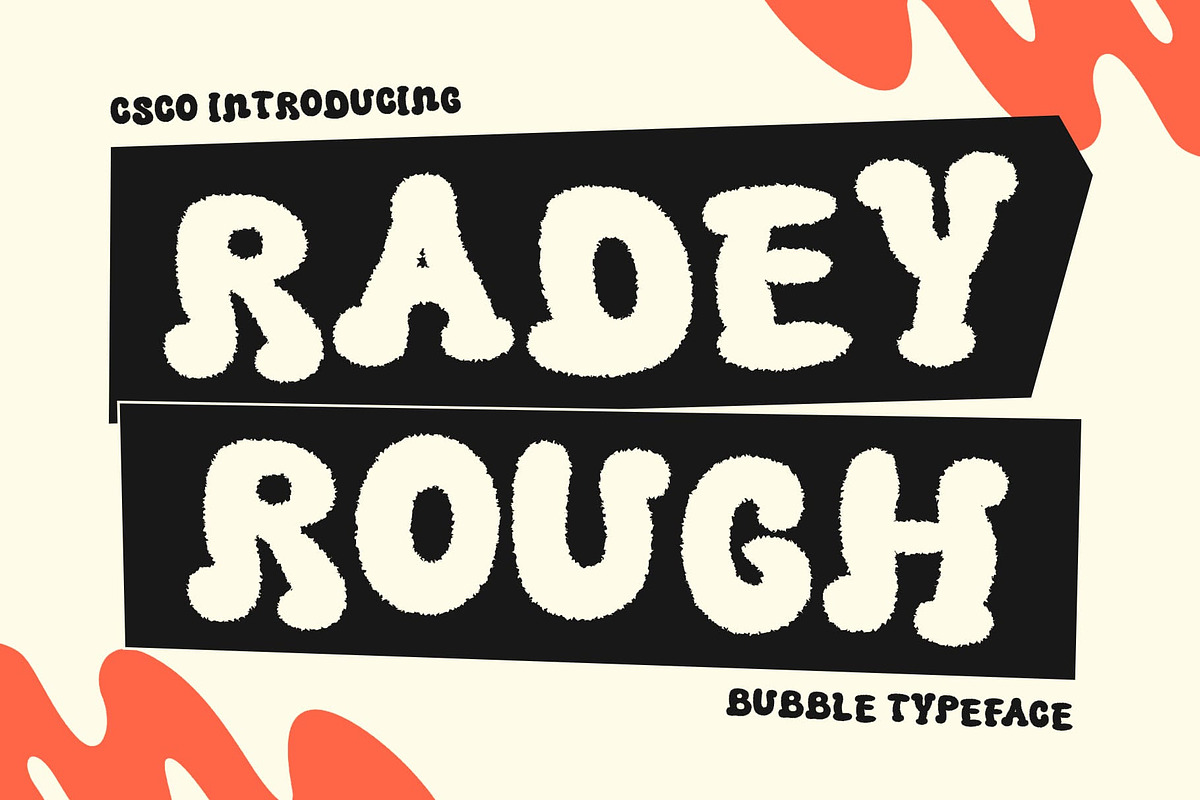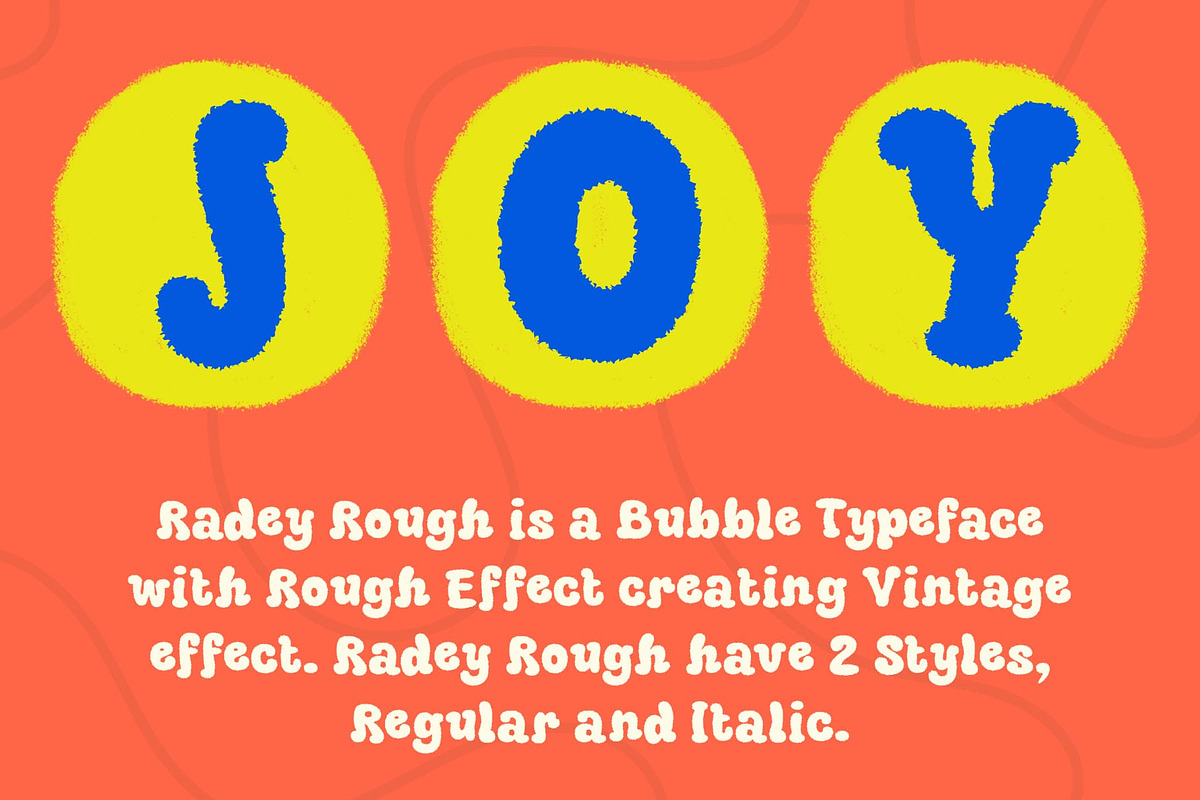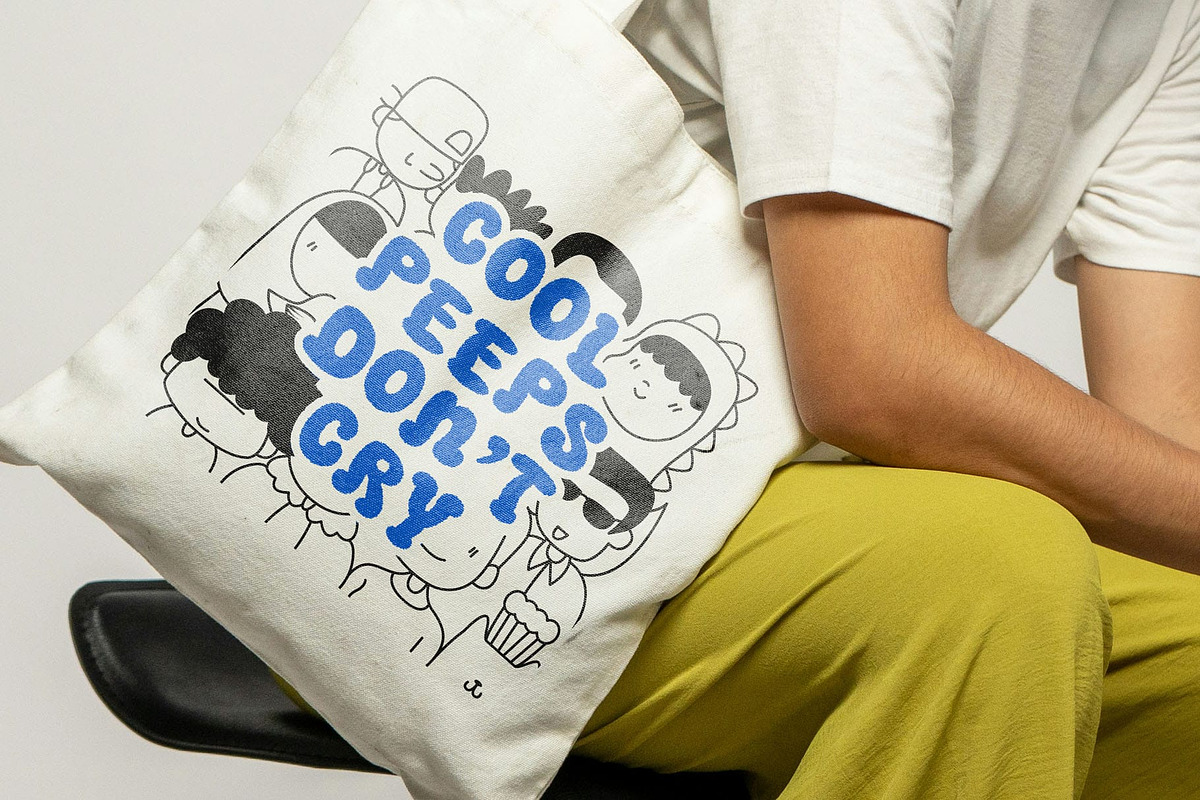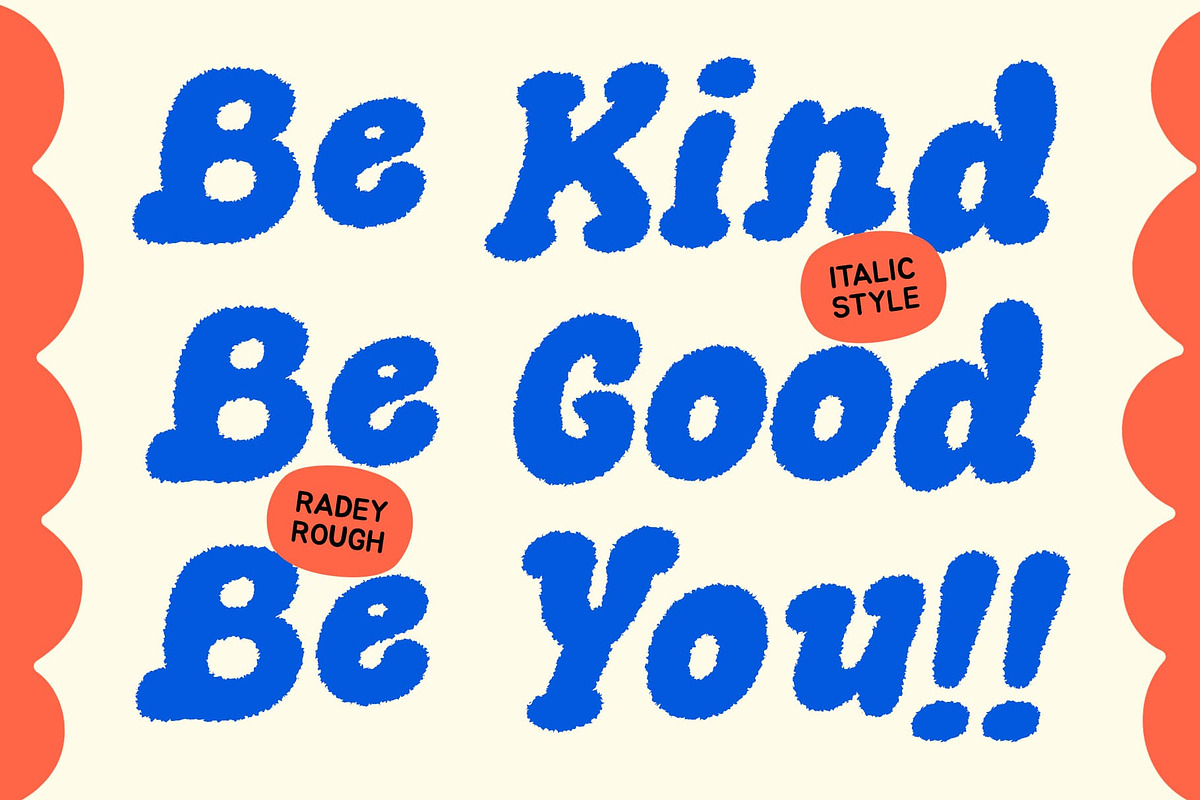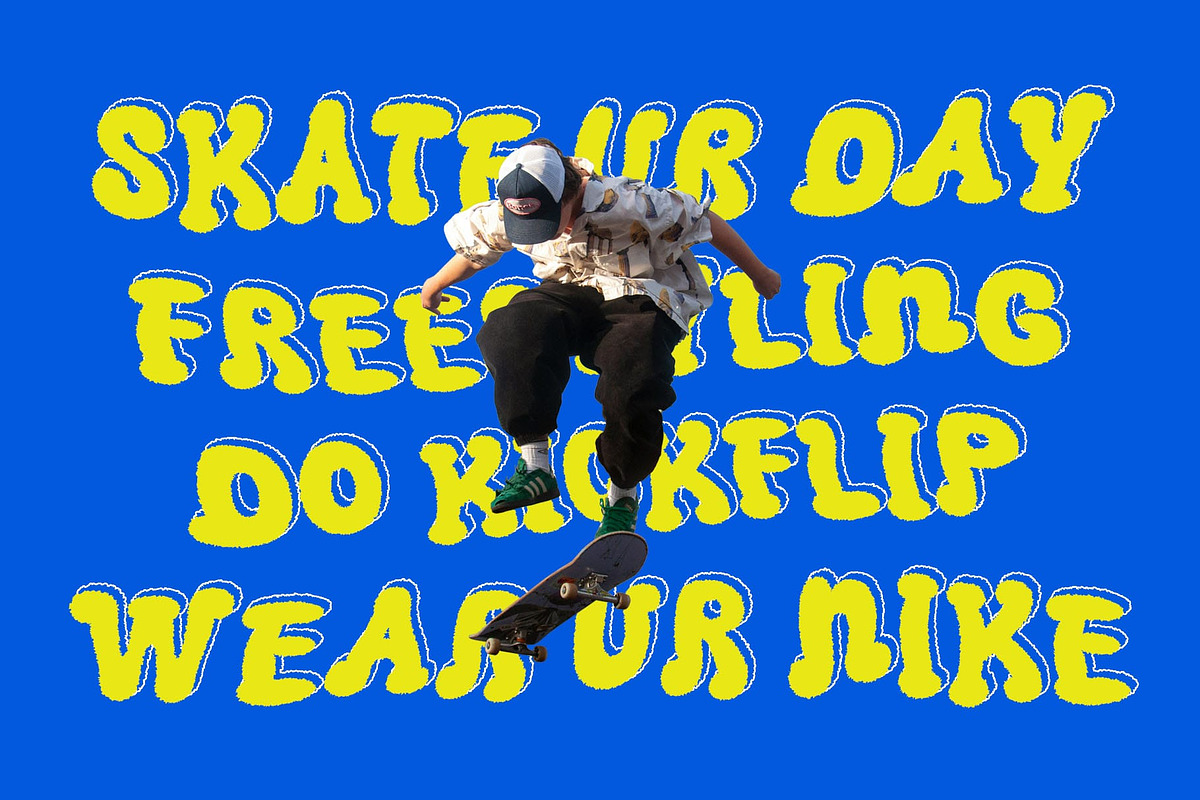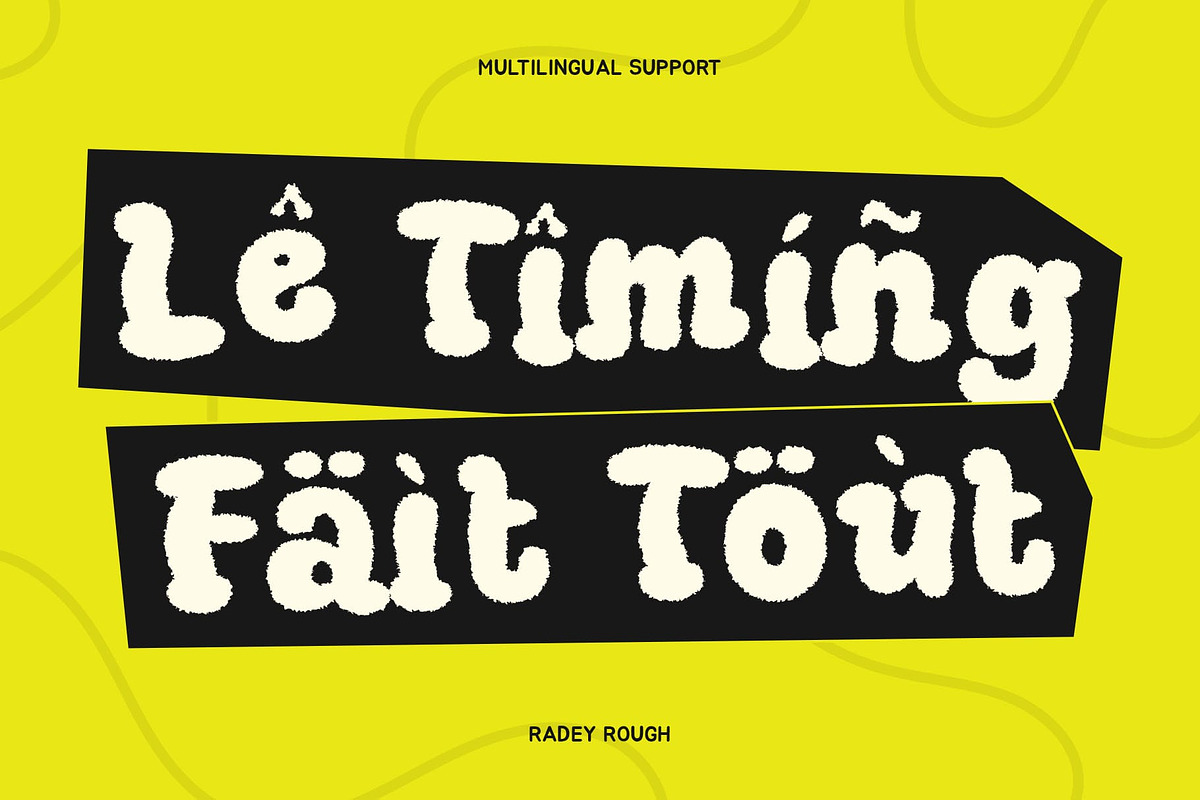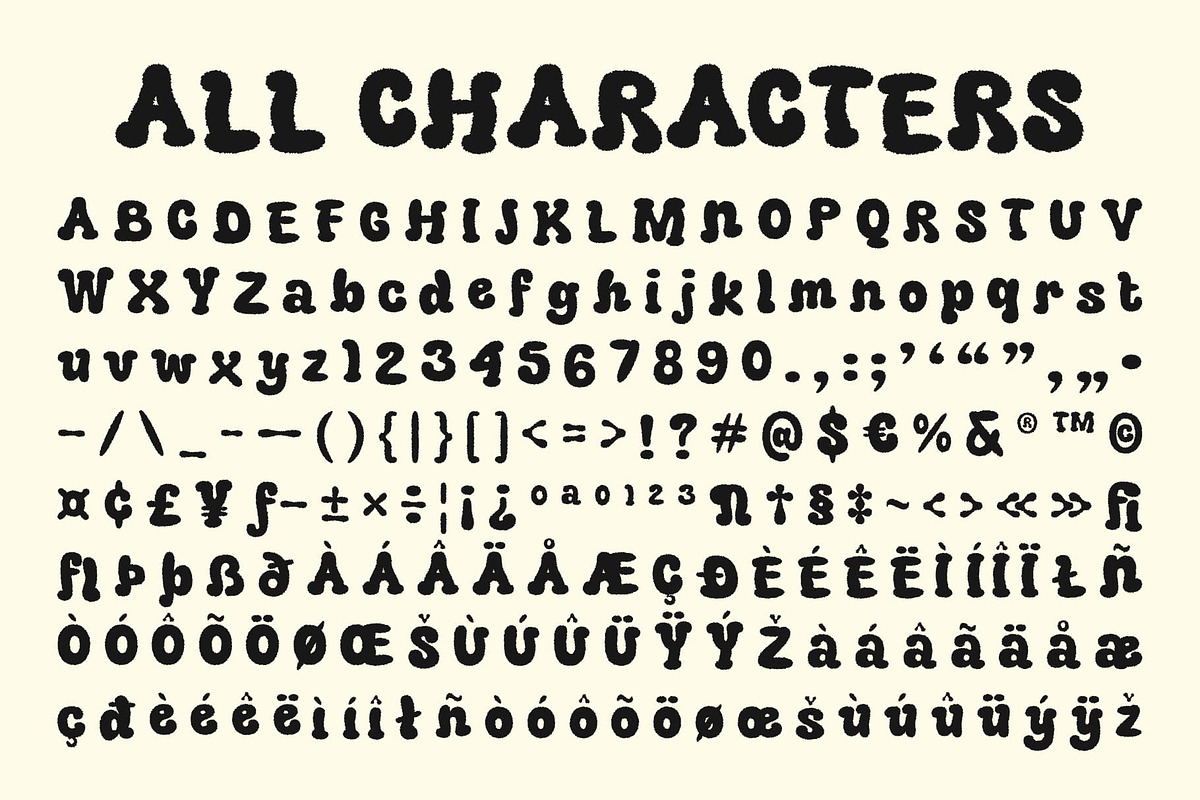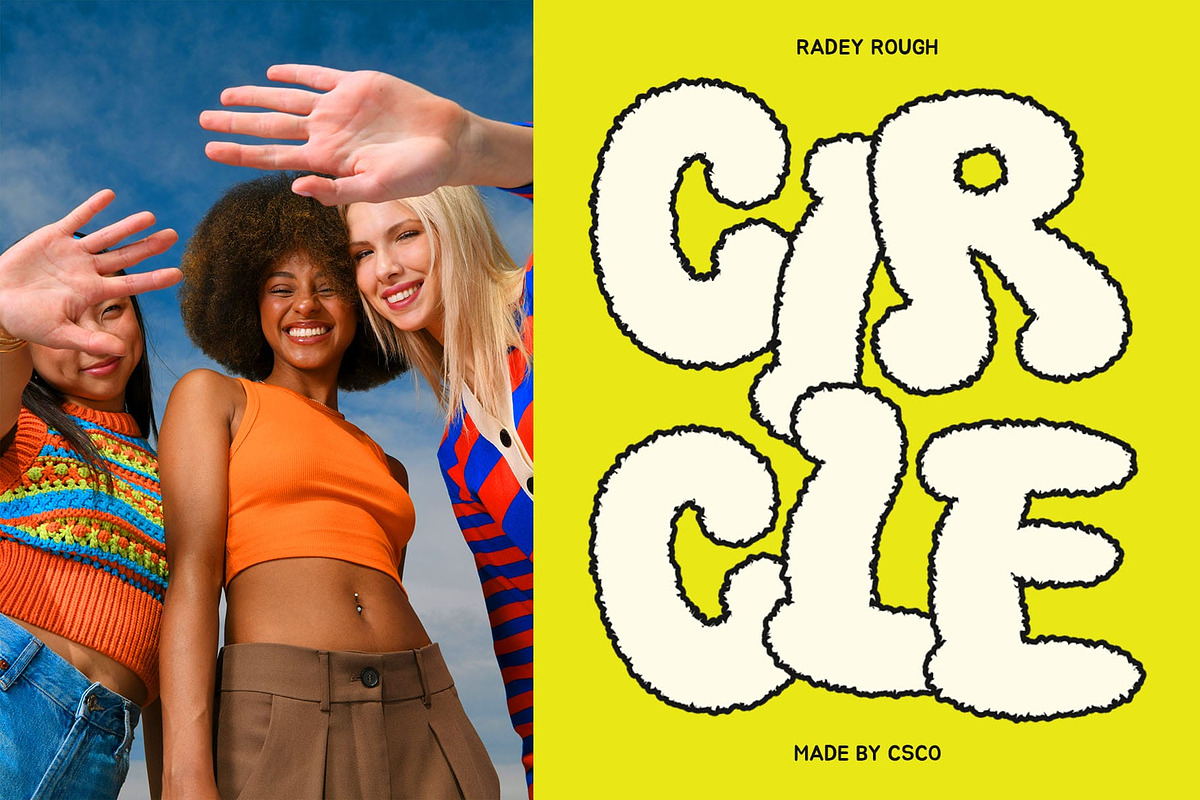
Radey Rough
Radey Rough Font – Retro Playfulness Meets Raw Expression
Bubble Style with Bold, Funky Energy Radey Rough is a bold display font with oversized bubble-style letterforms that immediately command attention. Its rounded shapes and generous curves exude a retro funky feel, radiating joy, movement, and energy with every character.
Y2K Aesthetic with a Modern Twist Drawing inspiration from the vibrant visual culture of the early 2000s, Radey Rough channels a nostalgic Y2K vibe. It blends glossy optimism with a touch of rebellion, making it ideal for projects that want to revive the spirit of that era in a fresh, contemporary way.
Rough Texture for a Spontaneous Edge What sets Radey Rough apart is its textured finish—introducing an expressive, hand-done feel to its otherwise smooth and playful forms. This roughness adds depth and character, giving the font an artistic, almost graffiti-like personality that feels alive and unfiltered.
Perfect for Bold, Nostalgic, and Stylish Designs Whether used in music posters, experimental layouts, creative branding, or visual statements that demand attention, Radey Rough delivers a high-impact, character-rich impression. It’s a perfect fit for designers who want to combine playful nostalgia with bold artistic expression, creating visuals that are both memorable and stylish.